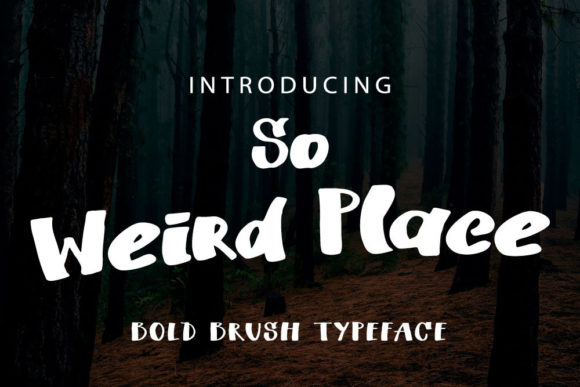
Prepare to step into a realm of enchantment with 'So Weird Place,' a display font that will ignite your creative spirit.
This whimsical and modern font, crafted with the utmost care by Crafty Files, embodies the free-spirited essence of calligraphy. Its bold strokes, reminiscent of vibrant paintbrush strokes, evoke a sense of artistry that will infuse your designs with a touch of magic.
Immerse yourself in a world where imagination knows no bounds, where 'So Weird Place' becomes your trusted companion in crafting enchanting visuals. Whether you're designing captivating logos, whimsical posters, or enchanting invitations, this font will effortlessly transport your creations to a realm of wonder.
Let the playful strokes of 'So Weird Place' guide your imagination, transforming your designs into captivating masterpieces. Experience the liberation of self-expression as you embrace the unique and magical essence of this font.
With 'So Weird Place' as your creative ally, you possess the power to craft visual narratives that ignite emotions and leave an enduring imprint on your audience. Embrace the allure of this font and embark on a journey where your imagination reigns supreme.